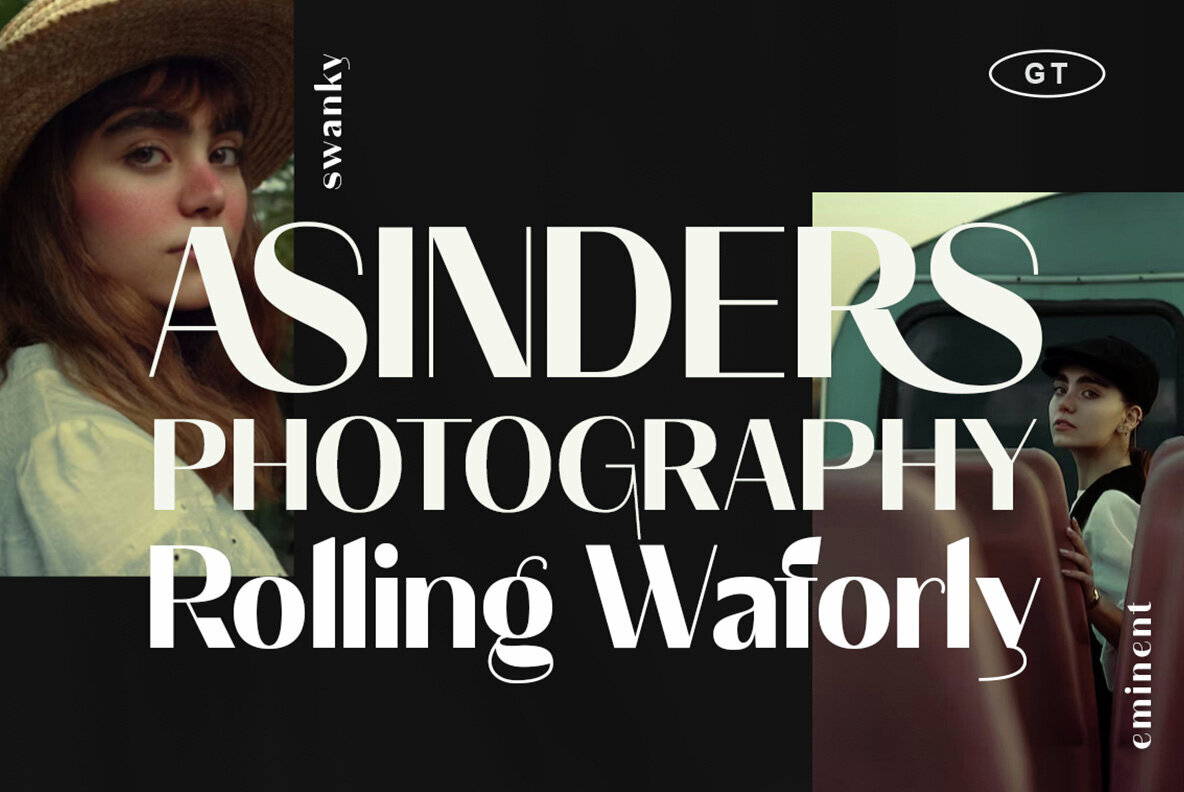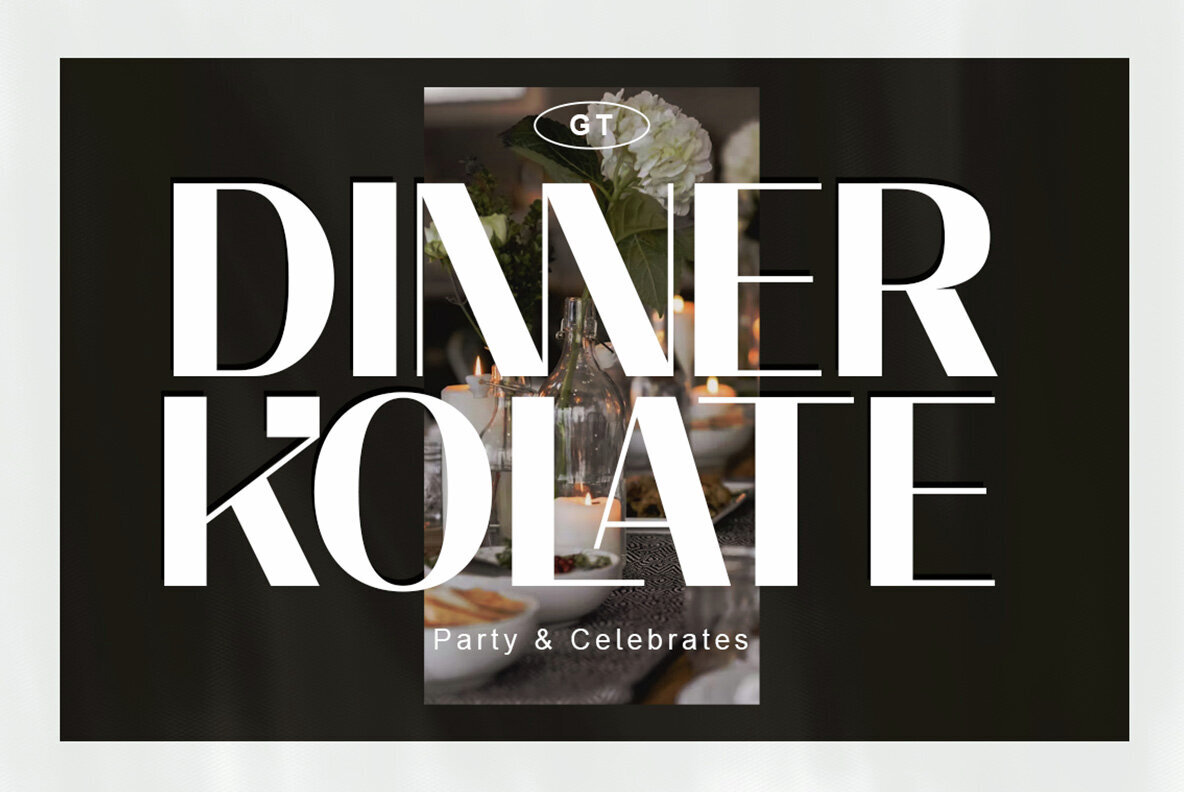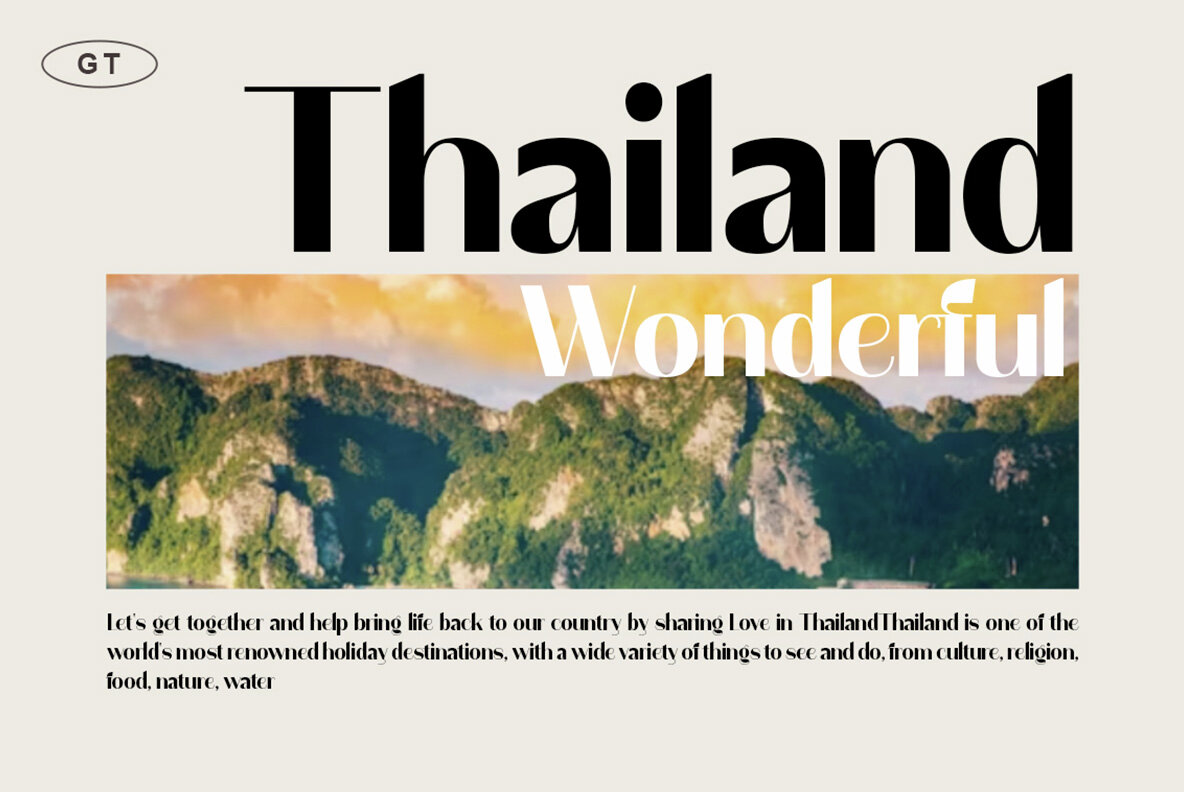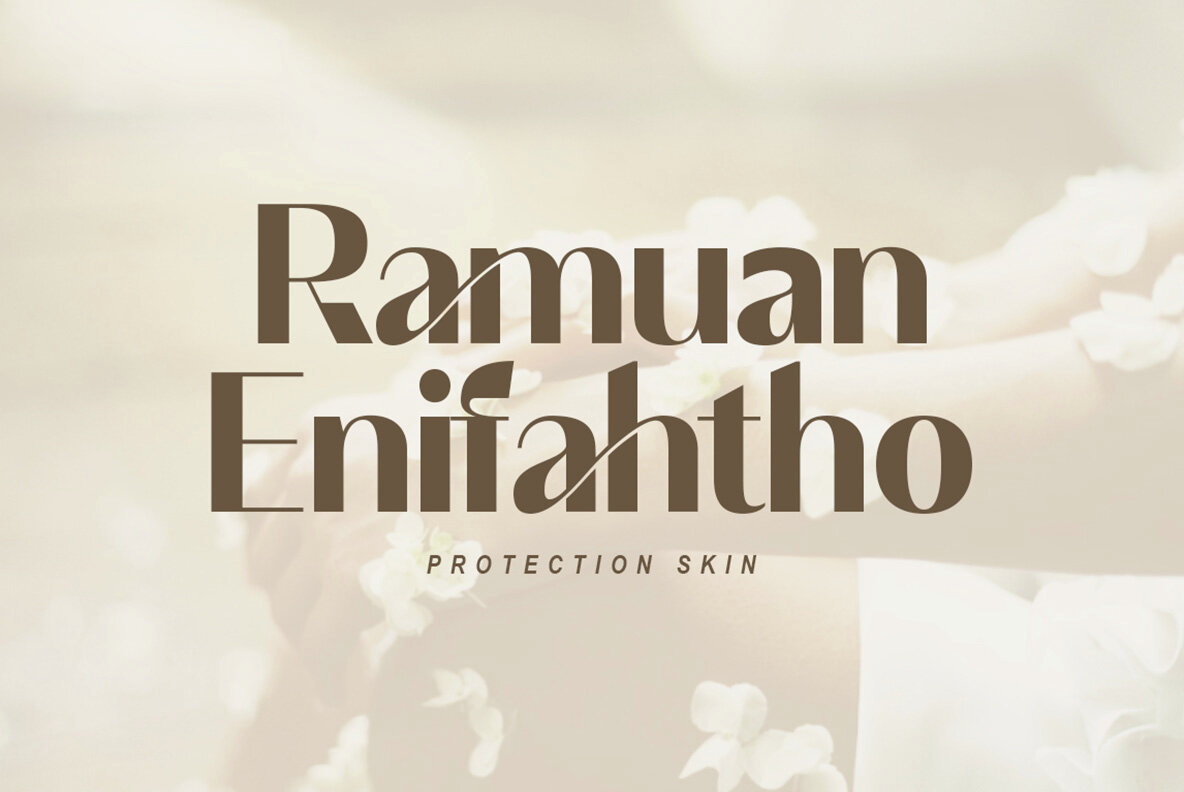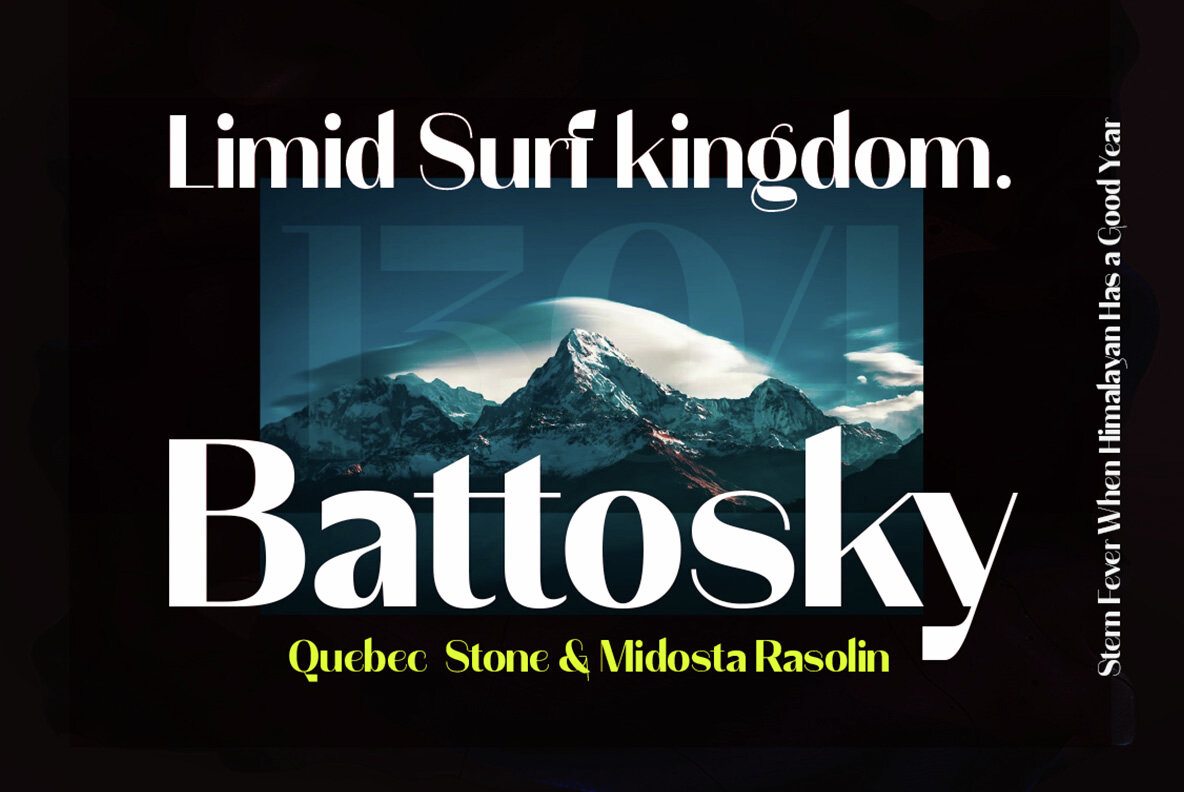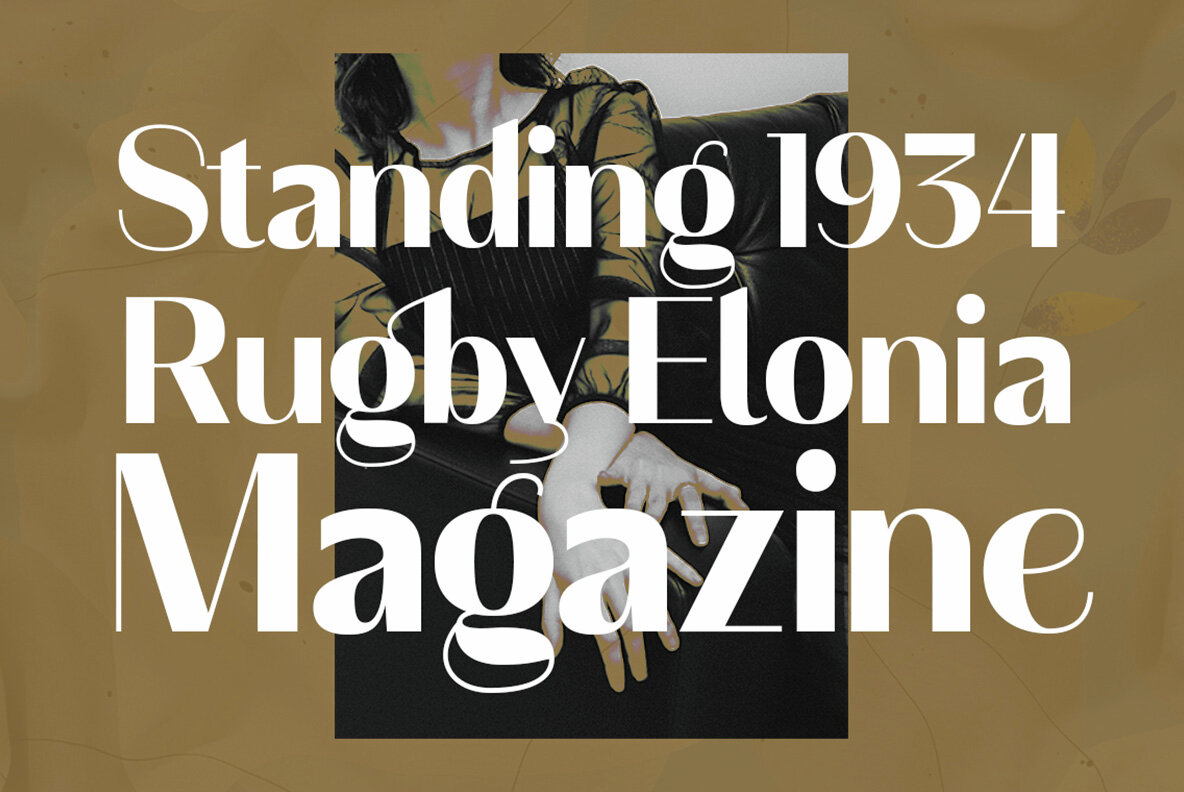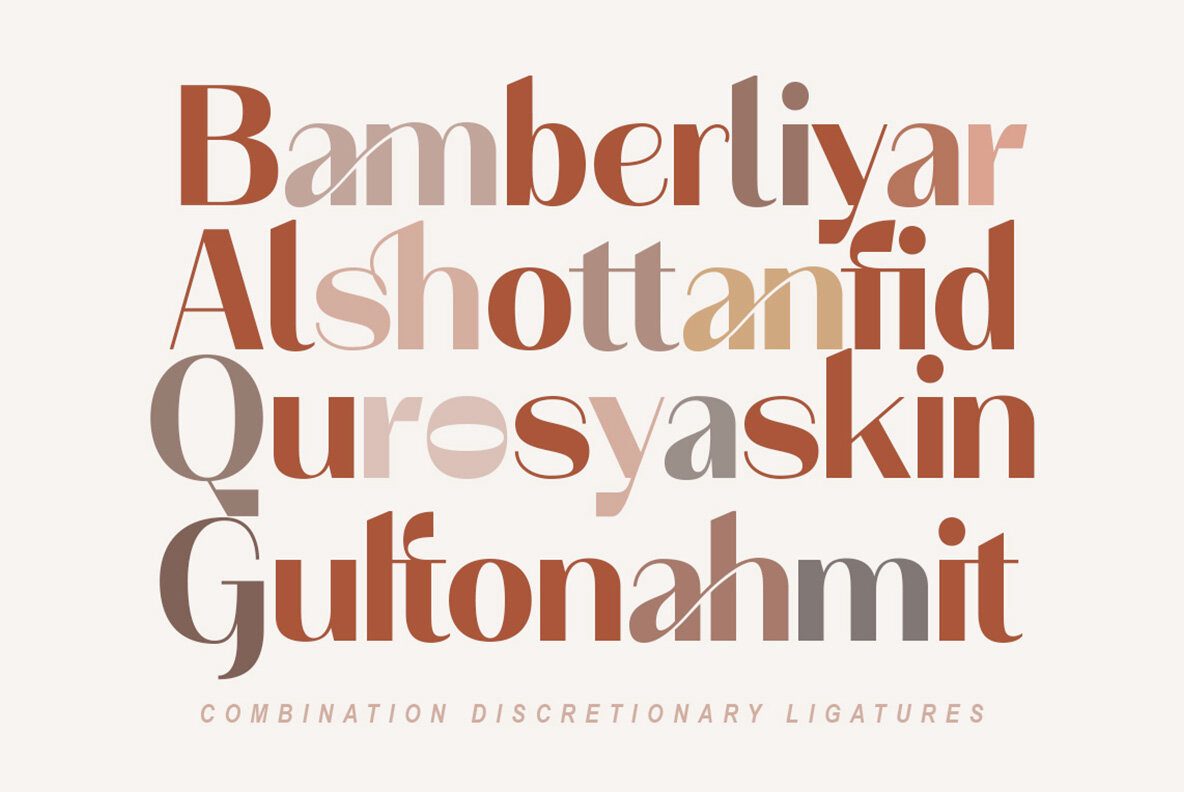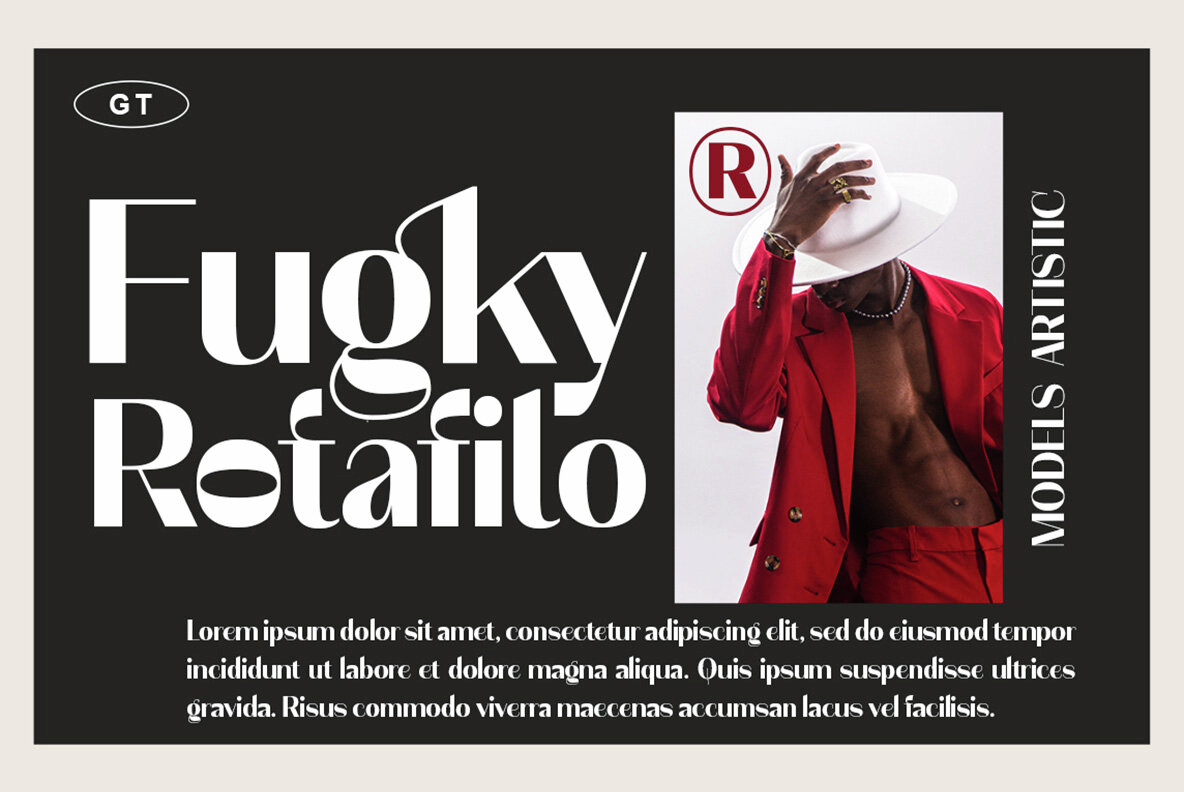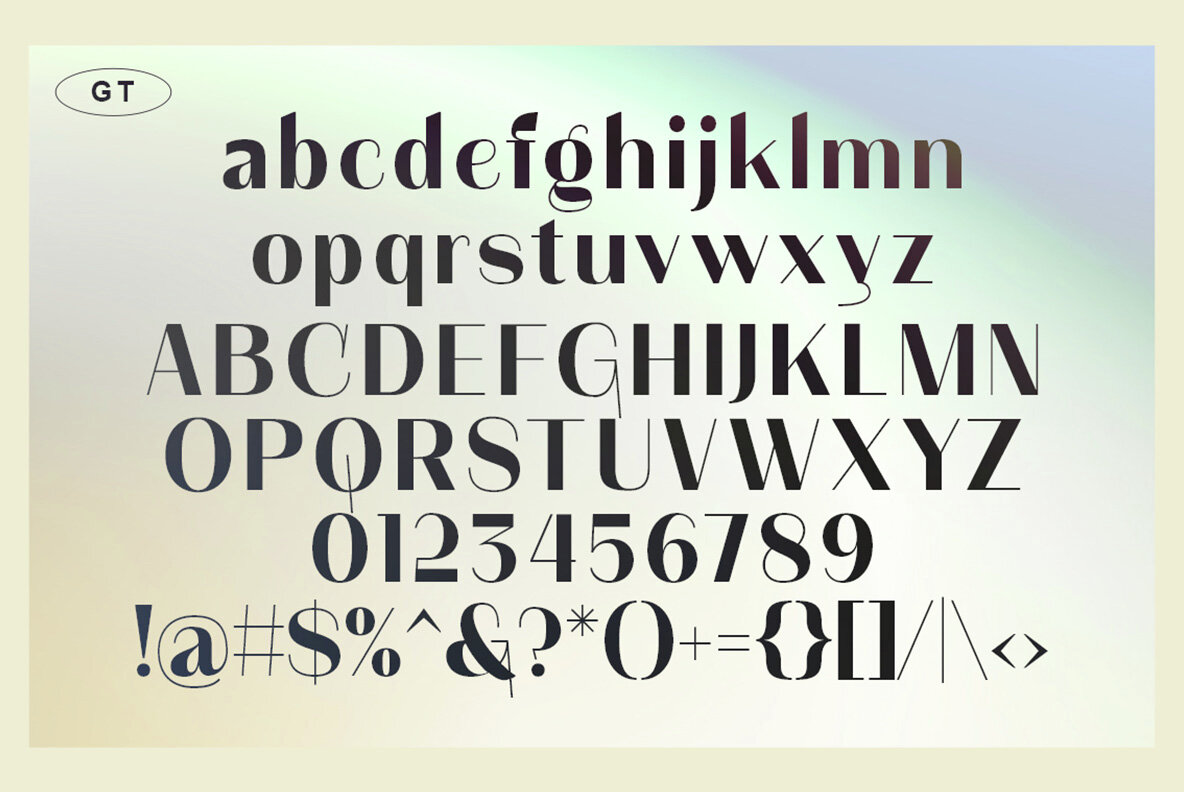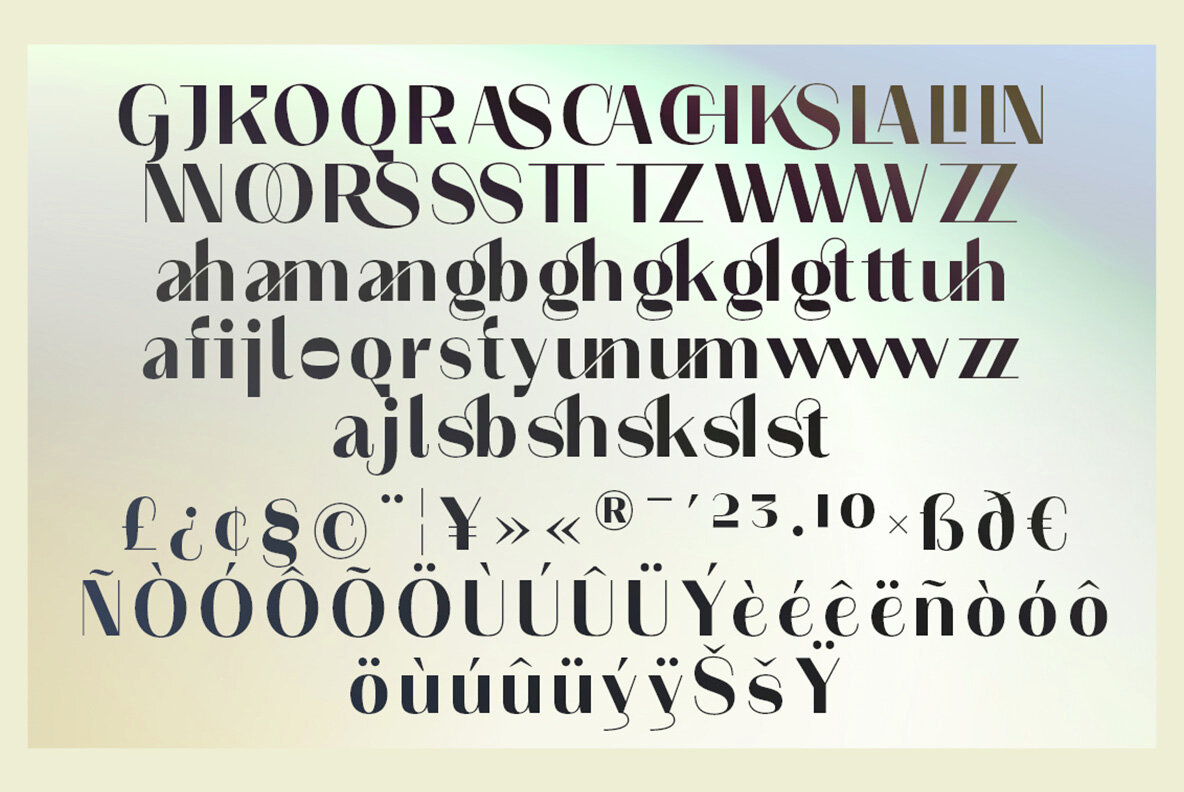
Rastafol Font
Rastafol Regular
Rastafol is an elegant serif font featuring numerous ligatures and alternative styles that will make your presentations and logos stand out. Elevate your brand’s look and add a touch of sophistication with Rastafol. This font is perfect for titles, logos, business cards, printed quotes, invitations, cards, packaging, and digital branding such as websites and social media. Please contact us if you have any questions—we are happy to help you! Enjoy the elegance of Rastafol in your designs.Rastafol: Elegant Serif with Ligatures and Alternates